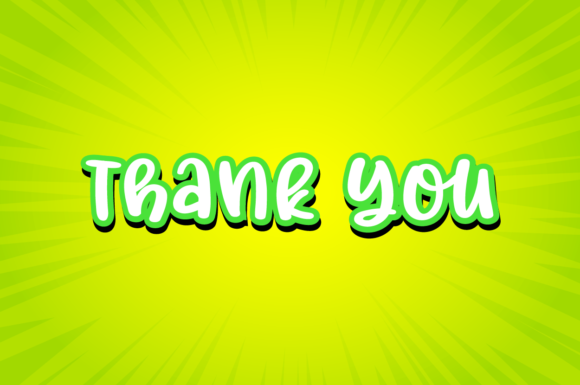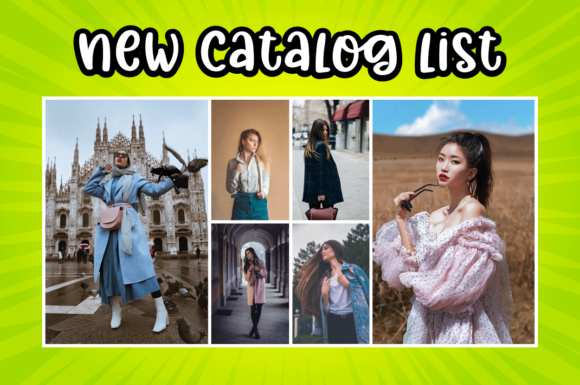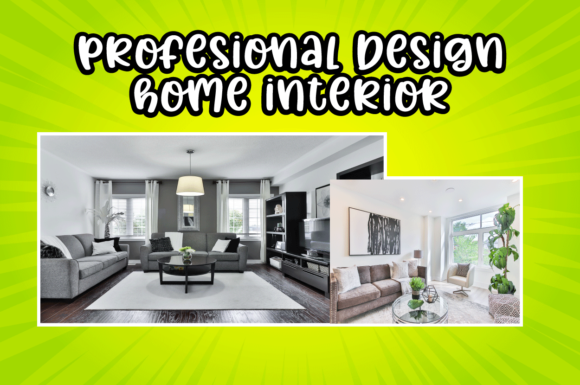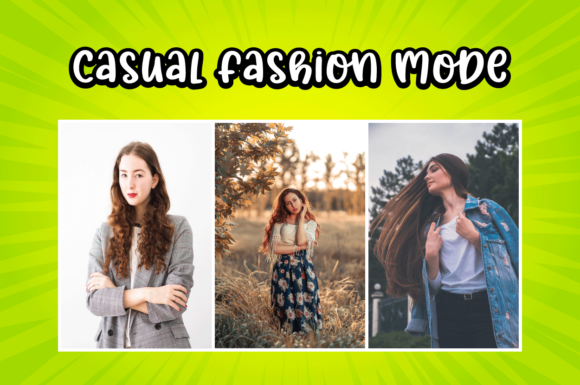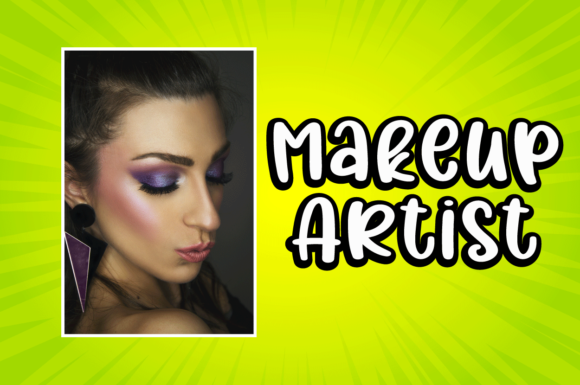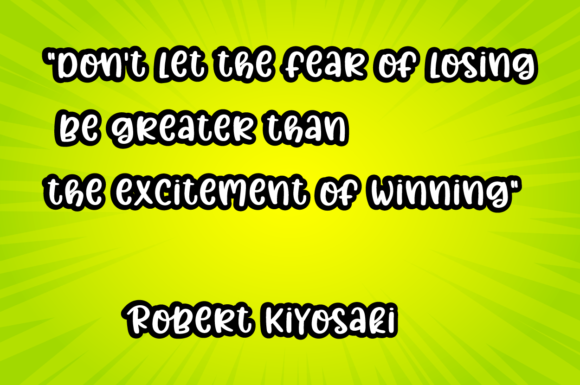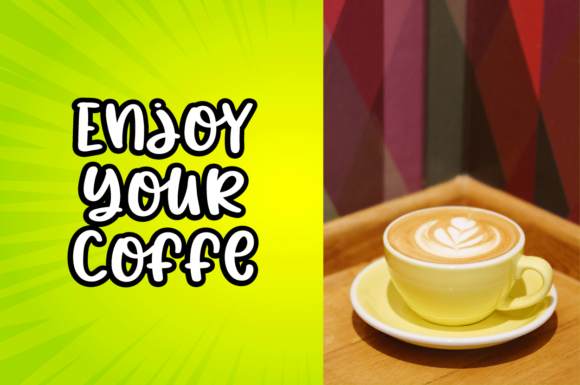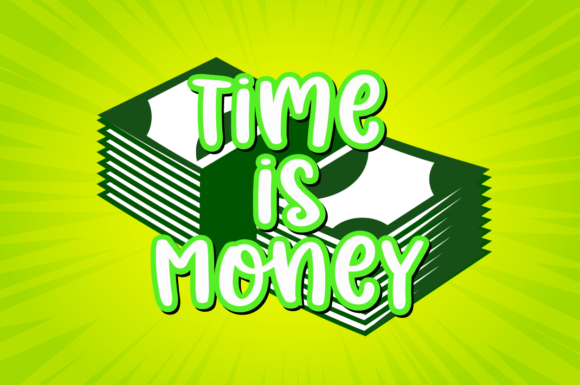
Amazing Moscow Font
About Amazing Moscow Font
Amazing Moscow is a cute, quirky and flowing handwritten font. This original look will appeal to a wide range of crafty ideas, from letterheads and titles, to stationery.